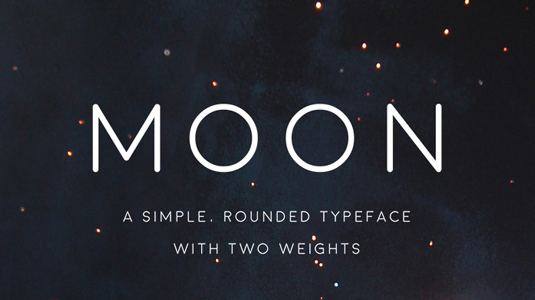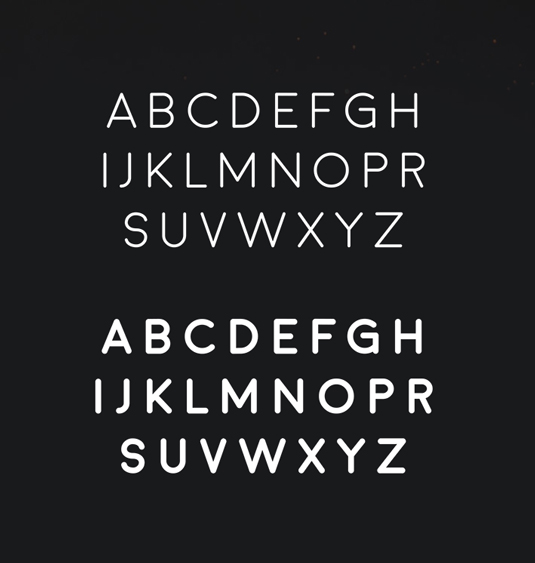
Font of the day: Moon
Every day we showcase the best fonts on the web. Today it's Moon by Jack Harvatt, which is free for personal use.
Moon by Jack Harvatt
Today's typeface of choice is Moon, by digital designer and illustrator Jack Harvatt. A simple, rounded design, Moon is available in both thin and bold variations.